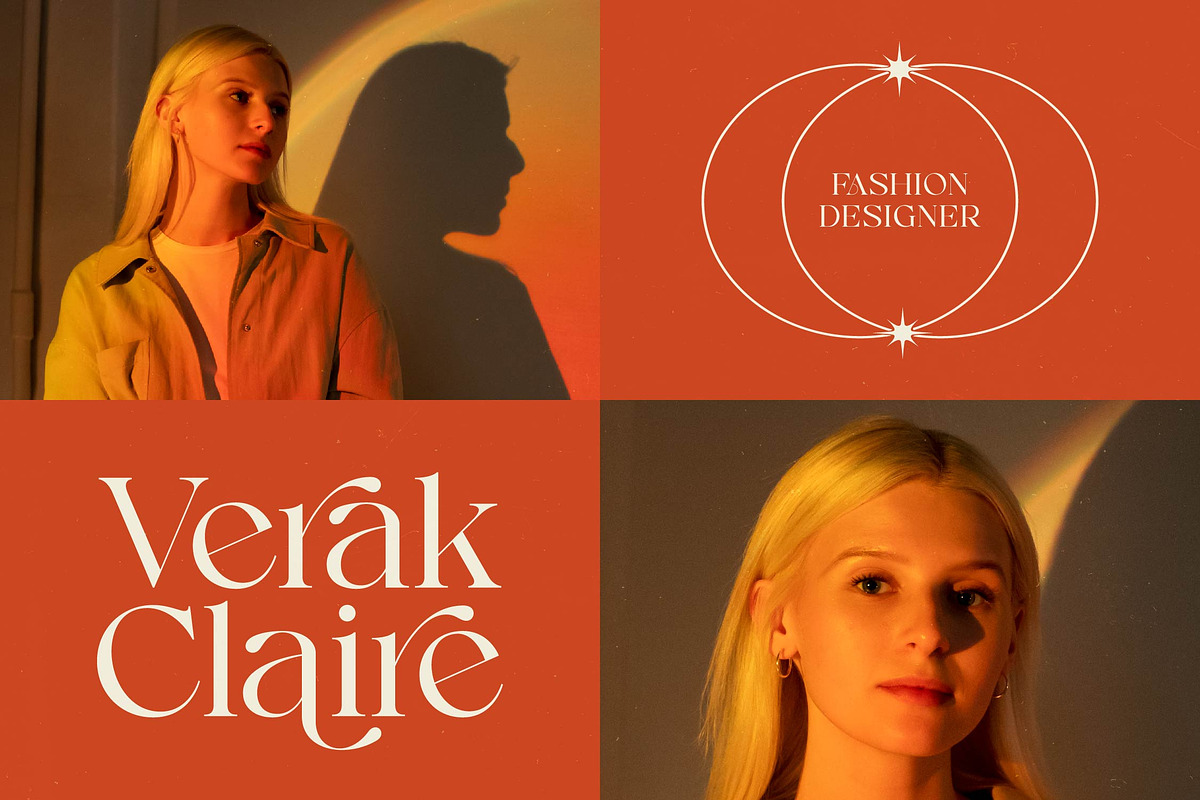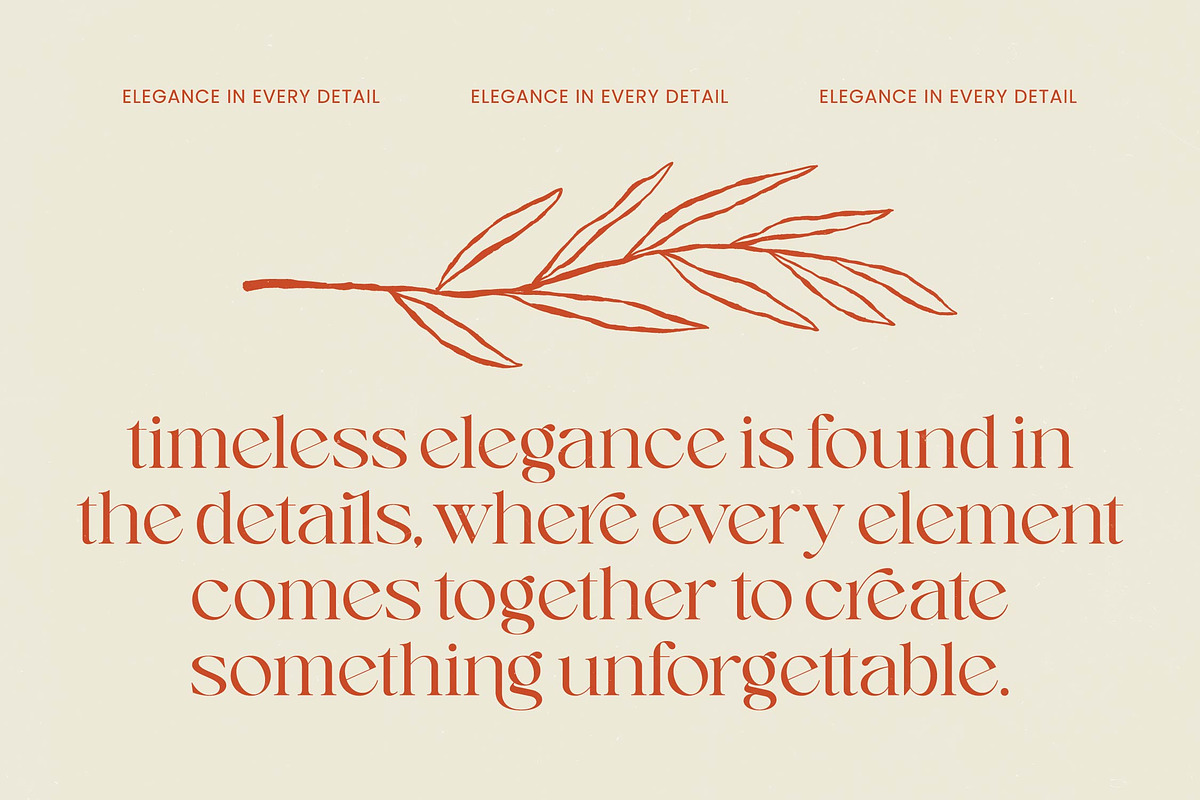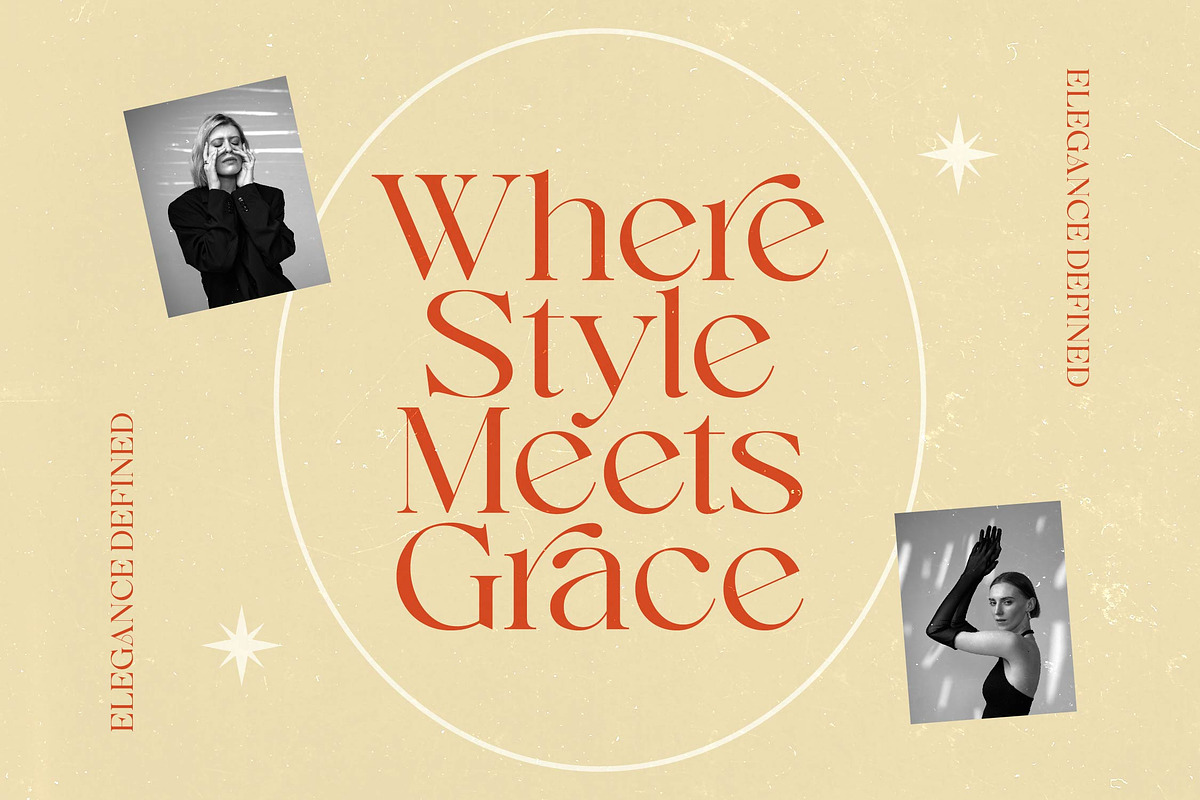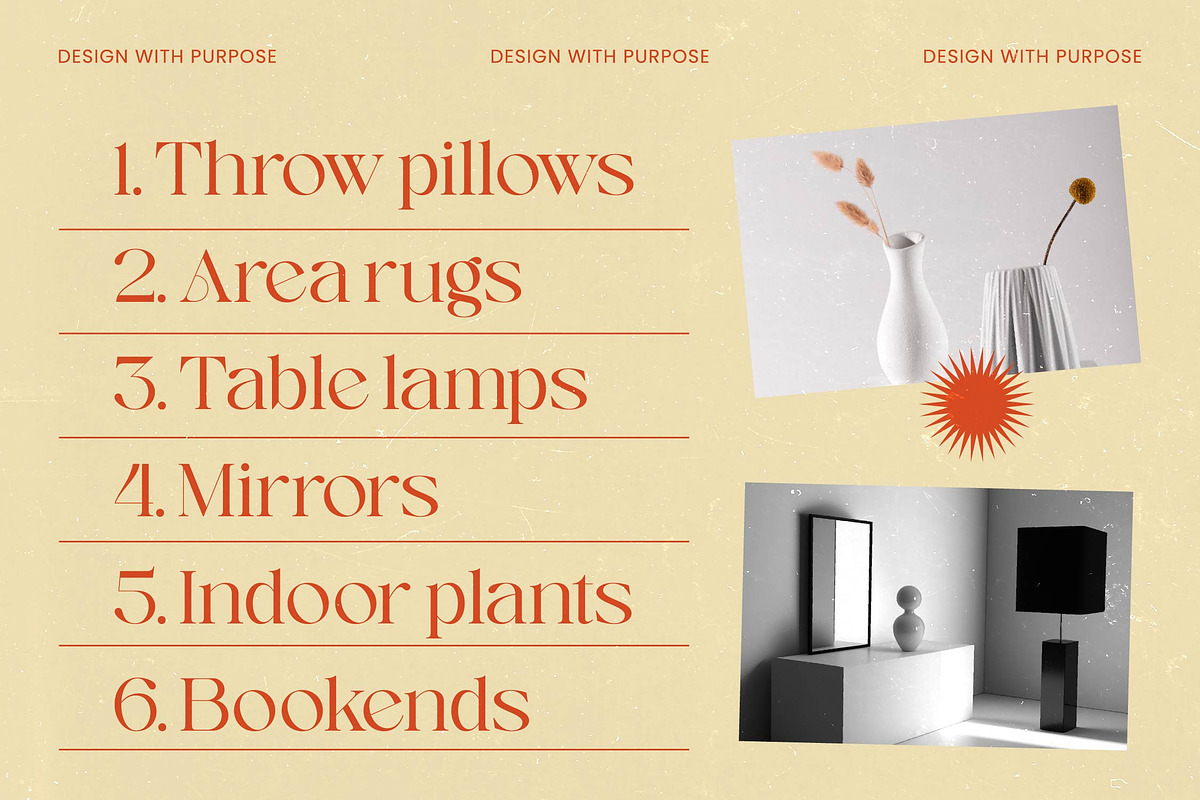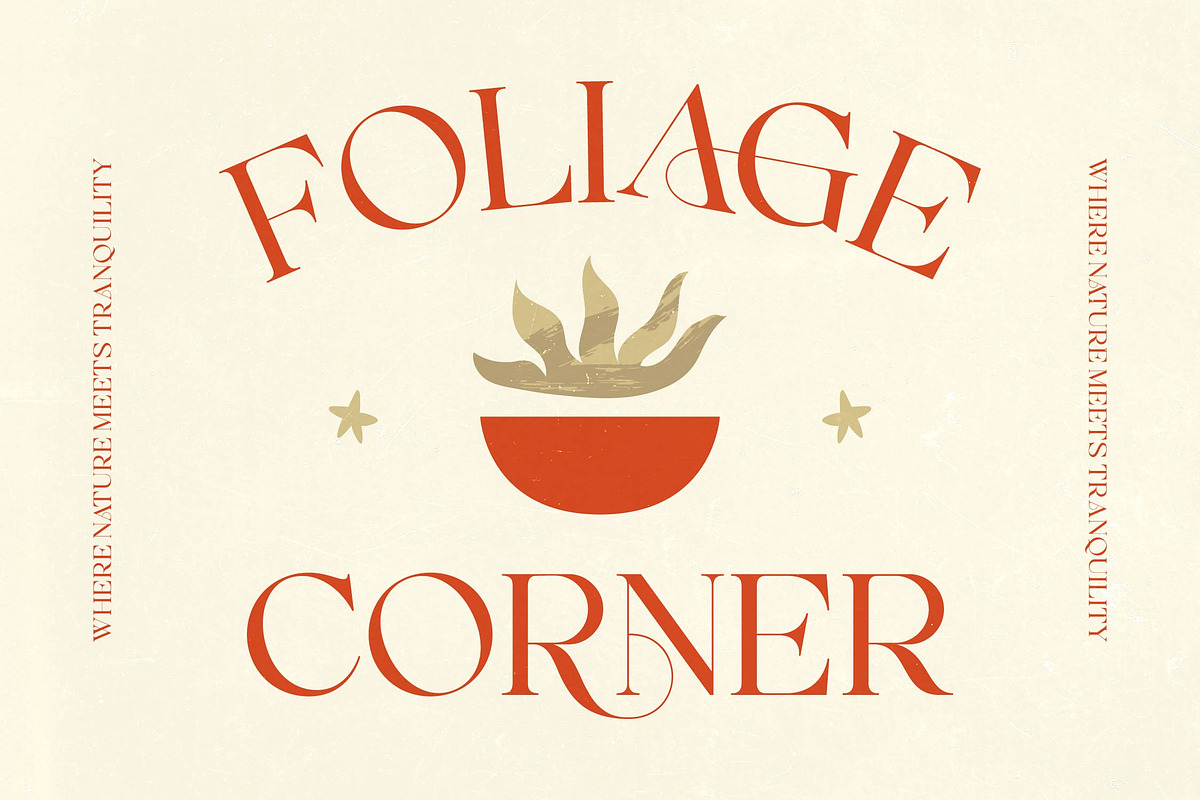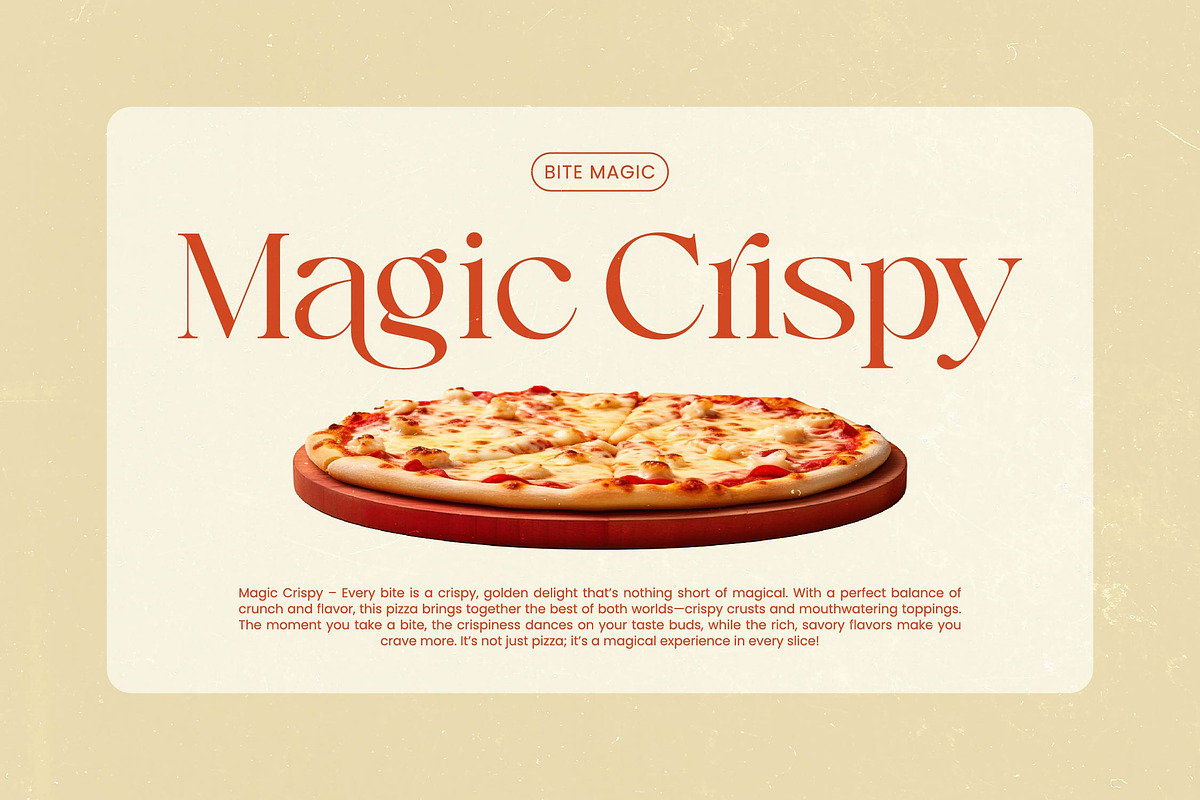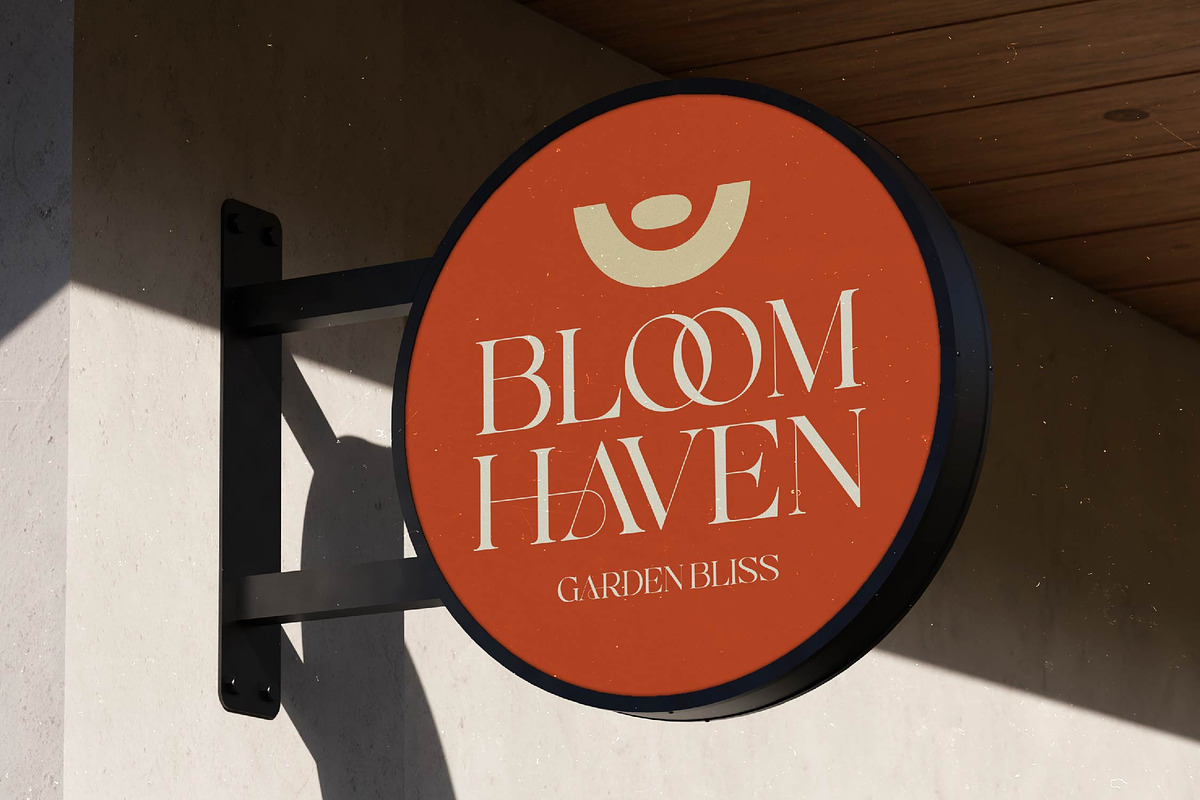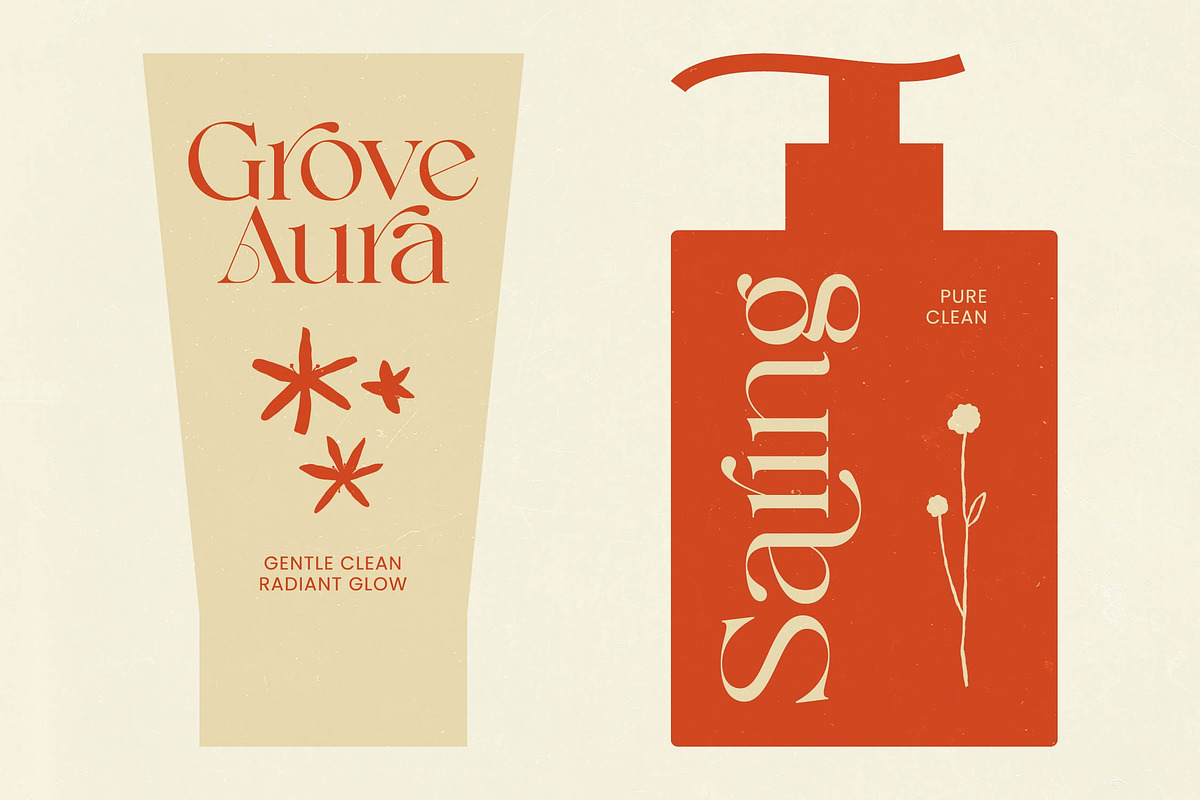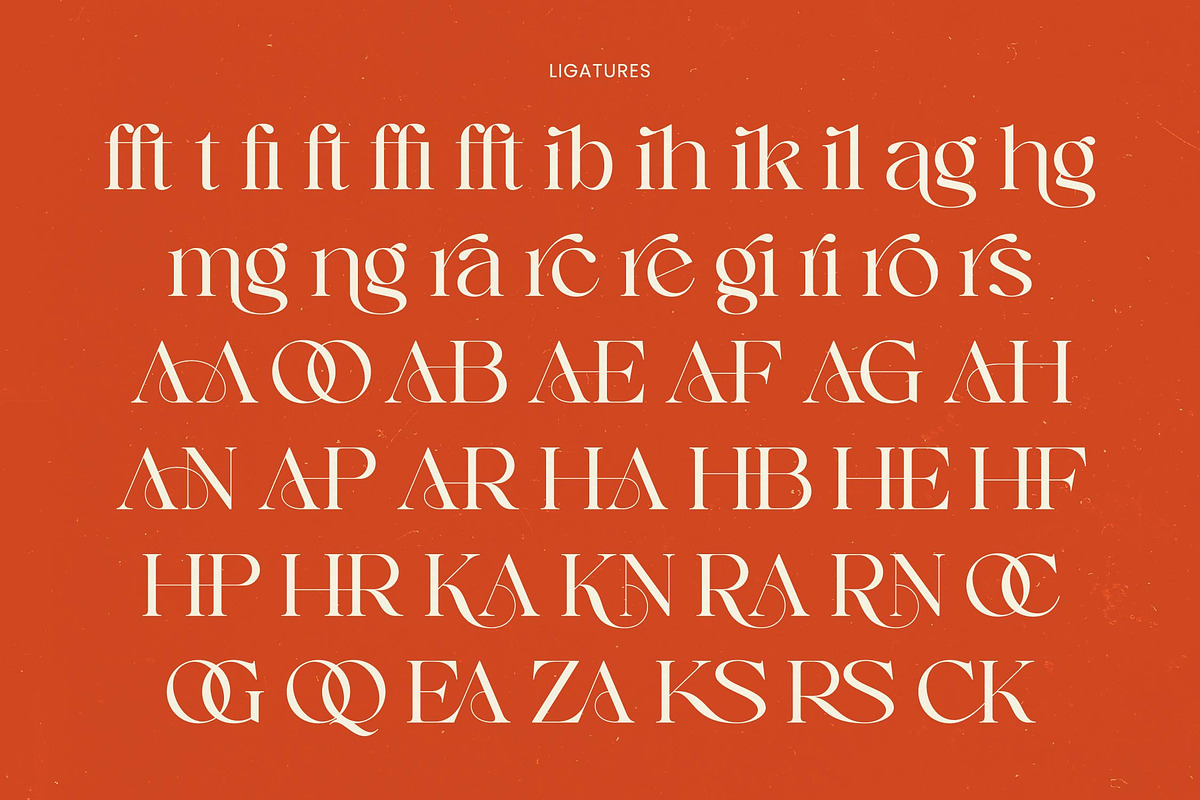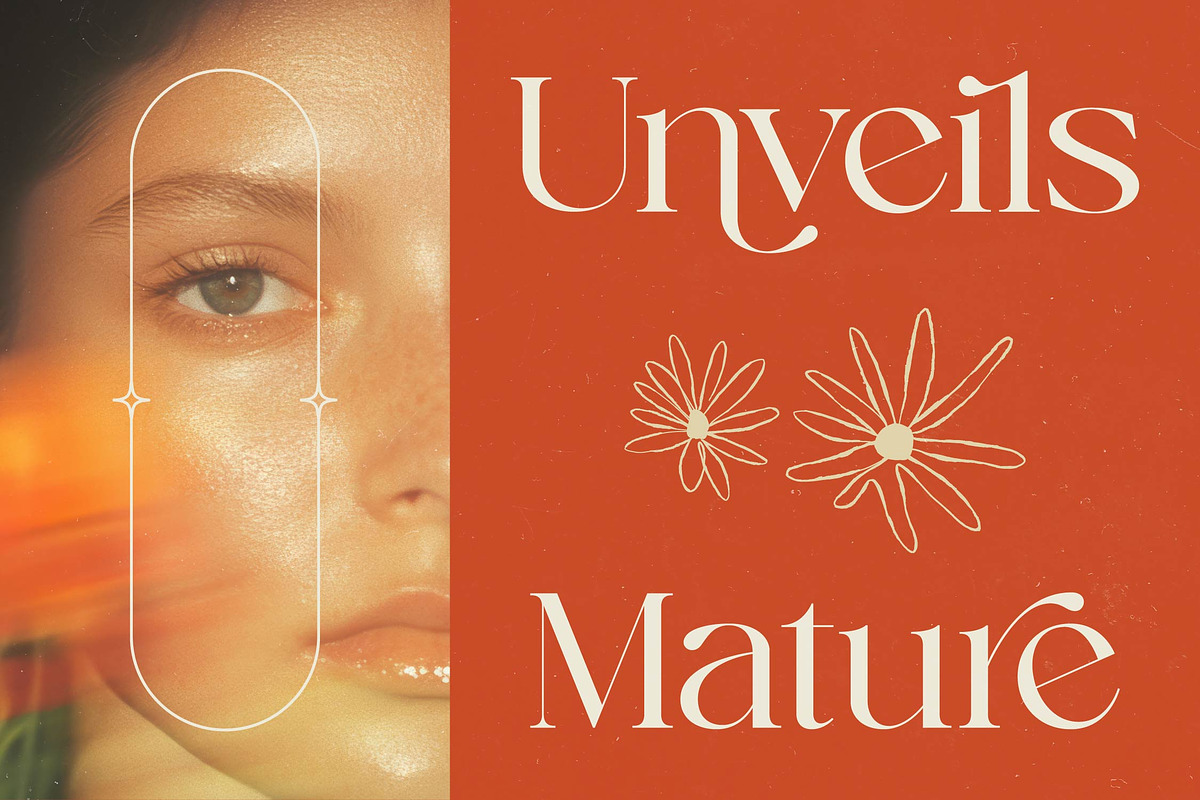
Enikra Elegant Modern Serif
Discover the timeless allure of Enikra Elegant, a typeface designed to infuse your creative projects with an unmatched sense of poise and editorial grace. This font strikes a perfect balance between classic heritage and contemporary chic, making it a definitive choice for designers seeking effortless sophistication.
Drawing inspiration from the delicate curves of ancient pottery and the sleek silhouettes of mid-century aesthetics, this typeface was born from a desire to blend organic warmth with sharp, precision-cut serifs. It evokes an atmosphere of sun-drenched Mediterranean villas and high-end boutique storefronts, where every detail matters.
As a modern serif display choice, this font offers a luxury typography experience that immediately commands attention while maintaining an air of understated class. The high-contrast serif design provides a distinct editorial font feel that ensures every headline delivers maximum branding impact across both digital and print mediums.
Perfectly aligned with the current modern serif trend, this typeface addresses the growing demand for editorial display fonts that feel personal and handcrafted. By utilizing character-driven typography, it allows brands to move away from sterile minimalism and toward a more expressive, storytelling visual language that resonates with today's discerning audiences.
This versatile family is an ideal solution for high-end logo design and comprehensive branding systems that require a touch of human warmth. Whether you are crafting layouts for an upscale editorial magazine, designing premium packaging, or creating romantic wedding invitations, its refined aesthetic makes it a staple for any fashion or lifestyle brand.
Beyond its stunning base forms, the package includes 49 creative ligatures and 20 unique alternates that allow for deep customization and one-of-a-kind letter combinations. The inclusion of decorative swashes and full multilingual support ensures that your international characters remain consistent and beautiful, no matter the language of your project.